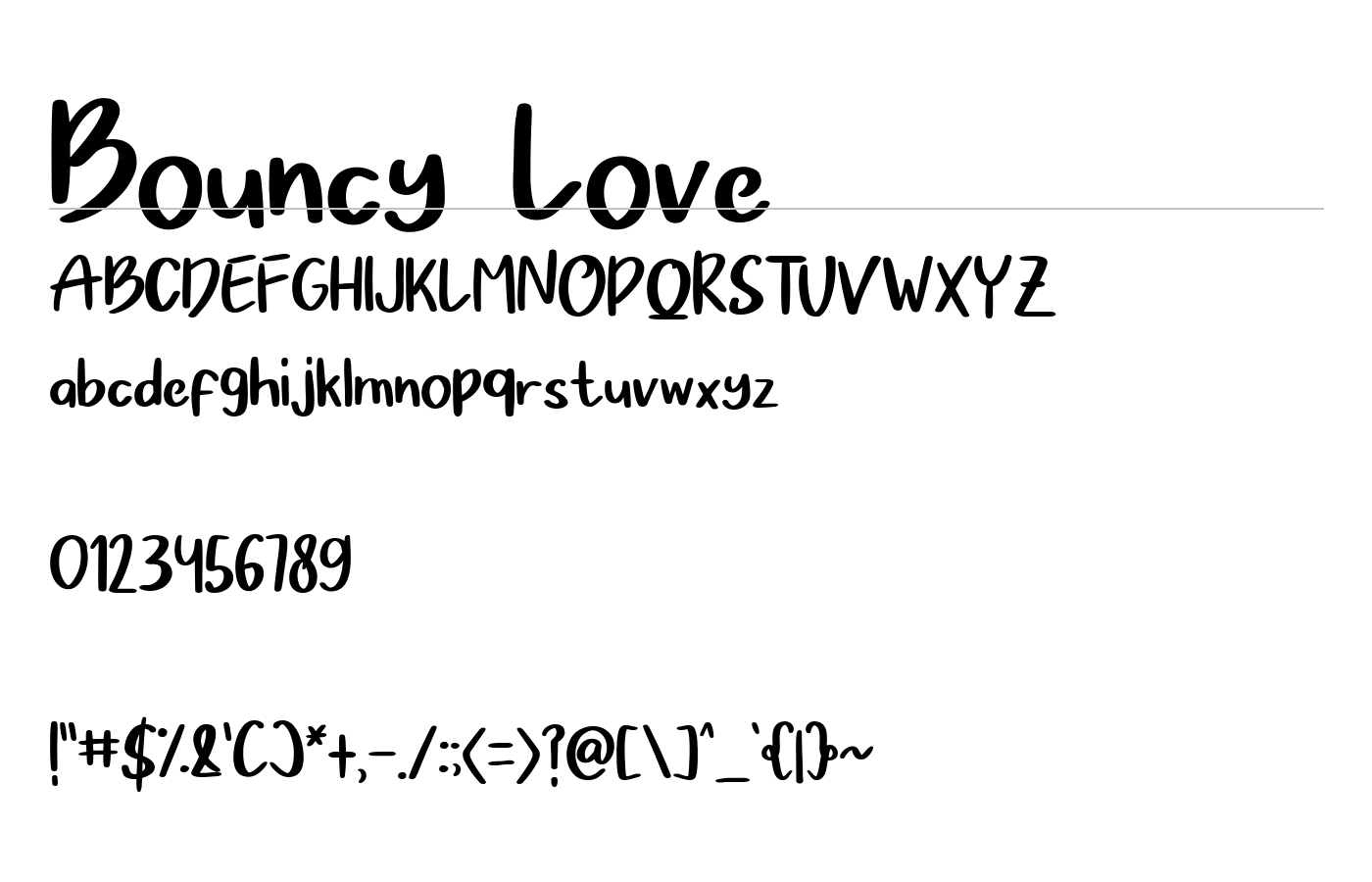
Bouncy Love is a playful and casual handwritten font with a lively, bouncy rhythm that brings warmth and friendliness to any design. Its tall, slightly irregular letterforms and smooth strokes create a fun and approachable vibe, making it ideal for playful branding, children’s products, and informal invitations. This font works best for headlines and logos where a personal, charming touch is desired.
Bouncy Love Font
About Bouncy Love Font
| Font family | Bouncy Love Font |
| Designer | Muhammad Hisyam Rivai |